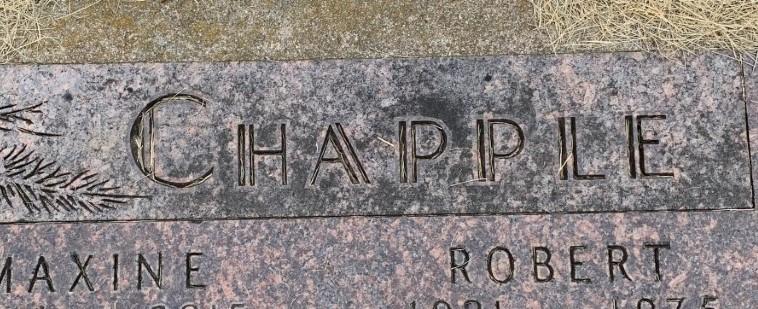
Hi Corey, this is an old lettering style from the Delano Granite Works in Delano Minnesota, which later became Rembrandt Memorials and has since been closed down. They were at one time the largest memorial maker in the country, or so they claimed.
Their lead designer, C.E. Dunn, created several alphabets exclusive to the company that were made into metal, glass, and plastic alphabets. This style was often also used for raised polished letters as in the attached example.